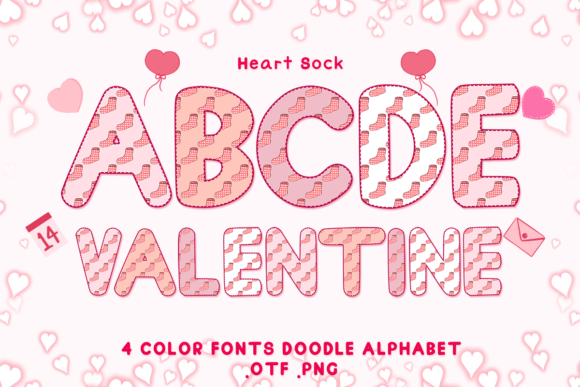
Heart Sock: Adorable Color Fonts for Your Creative Projects
Finding a typeface that carries genuine warmth can completely shift the energy of a design. While standard serif font and sans serif font families are essential workhorses, they often lack the personality needed to convey pure affection or celebration. This is where Heart Sock enters the conversation. It is not just a set of characters; it is a premium font designed with a specific emotional intent—to bring joy. As a color font (OpenType-SVG), it renders multi-colored designs directly within the text layer, eliminating the need for manual shading or complex layering in your design software.
Visual Character and Style
At its core, Heart Sock is a display font that blends the fluidity of a script font with the boldness of a handwritten font. The visual characteristics are defined by soft textures and integrated color palettes that mimic hand-painted strokes or digital brush effects. Unlike flat vector text, these glyphs have depth. The edges aren't just sharp vectors; they carry the nuances of the medium they emulate, whether that is watercolor, marker, or textured ink.
The personality of this typeface is undeniably playful and affectionate. It feels intimate, making it an ideal choice for projects where you want to speak directly to the viewer's heart. The "color" aspect is the defining feature here. Because it is an OpenType-SVG file, the font includes shading and color data within the file itself. This means when you type "Valentine," you get a finished, stylized look immediately. It bridges the gap between typography and illustration, serving as a powerful piece of design assets for any creative toolkit.
Practical Applications: Where Heart Sock Shines
The versatility of a creative font like Heart Sock extends across various mediums, though it requires a strategic approach to application. Because it is a display font with intricate details, it is best suited for headlines, logos, and short bursts of text rather than long-form body copy.
In the realm of brand identity, this typeface is perfect for businesses that want to project a friendly, approachable, and artisanal image. Think of a boutique bakery, a handmade jewelry shop, or a lifestyle blog. Using Heart Sock in your logo design can instantly communicate that your brand is personal and human-centric. It adds a layer of brand perception that suggests creativity and care.
For packaging design, the font works exceptionally well for product names or special edition labels. Imagine a limited-run coffee bag for a holiday blend or a cosmetic box for a gift set; the color font adds visual interest without requiring expensive multi-color printing setups, as the complexity is handled in the digital file. Similarly, in editorial design, it can be used for drop caps or pull quotes in magazines to break the monotony of standard typography and draw the reader's eye to key messages.
Digital and Social Media Use
In the fast-paced world of digital content, grabbing attention is paramount. Heart Sock excels in social media graphics. The built-in color and texture stop the scroll. It is highly effective for Instagram stories, Pinterest pins, and Facebook headers where visual impact is prioritized over information density. For web design, it can be used for hero section titles to establish an immediate emotional connection with the site visitor, provided it is used sparingly to maintain load times and readability.
Strategic Typography: Perception and Engagement
Choosing a font is rarely just about aesthetics; it is about psychology. The typeface you select influences how your audience perceives your message. Heart Sock influences visual hierarchy by acting as a focal point. Its unique rendering naturally draws the eye, allowing you to guide the viewer through your layout effectively.
When considering audience engagement, fonts that feel personal and handwritten often perform better than sterile, corporate typefaces in B2C markets. A handwritten font like this one mimics the human touch, which can subconsciously build trust. It signals that there is a real person behind the design, which is crucial for entrepreneurs, bloggers, and small business owners looking to build a community rather than just a customer base.
However, maintaining professionalism requires balance. While Heart Sock adds flair, pairing it correctly is essential for consistency. A common mistake is pairing a complex display script with another decorative font. Instead, combine Heart Sock with a clean, neutral sans serif or a classic serif for body text. This contrast ensures that the headline pops while the supporting text remains legible. This practice of font pairing ensures that your design feels structured and intentional, rather than chaotic.
Technical Guidance and Workflow
Understanding the technical specifications of Heart Sock is vital for a smooth workflow. This product is a color font utilizing the OpenType-SVG standard. This format embeds SVG data inside the font file, allowing for those rich, multi-colored textures.
Compatibility: It is crucial to note that this technology requires software that supports SVG fonts. Heart Sock is fully compatible with PhotoShop, Illustrator, Silhouette, and Inkscape. These applications can read the color data and render the font exactly as intended.
Heart Sock is more than just a typeface; it is a versatile tool for adding emotional resonance to your designs. Whether you are crafting a Valentine’s Day promotion, designing a wedding invite, or building a lifestyle brand, this font offers a unique blend of charm and technical sophistication. By understanding its strengths and technical requirements, you can leverage it to create designs that are not only beautiful but also deeply engaging.